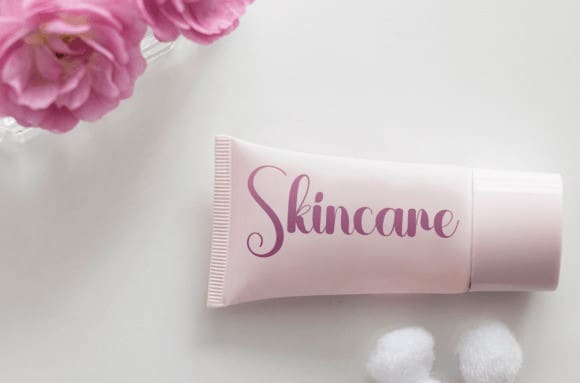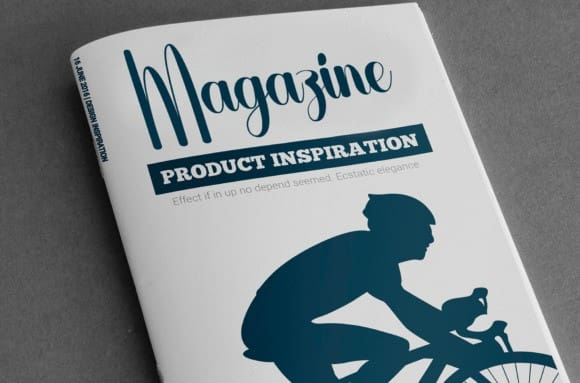
Baby Bunny Font
Baby Bunny Font, is a sweet and friendly handwritten font. Fresh and neat, this font is ideal for writing wedding invitations, cards, or any other design that might need a fun touch!